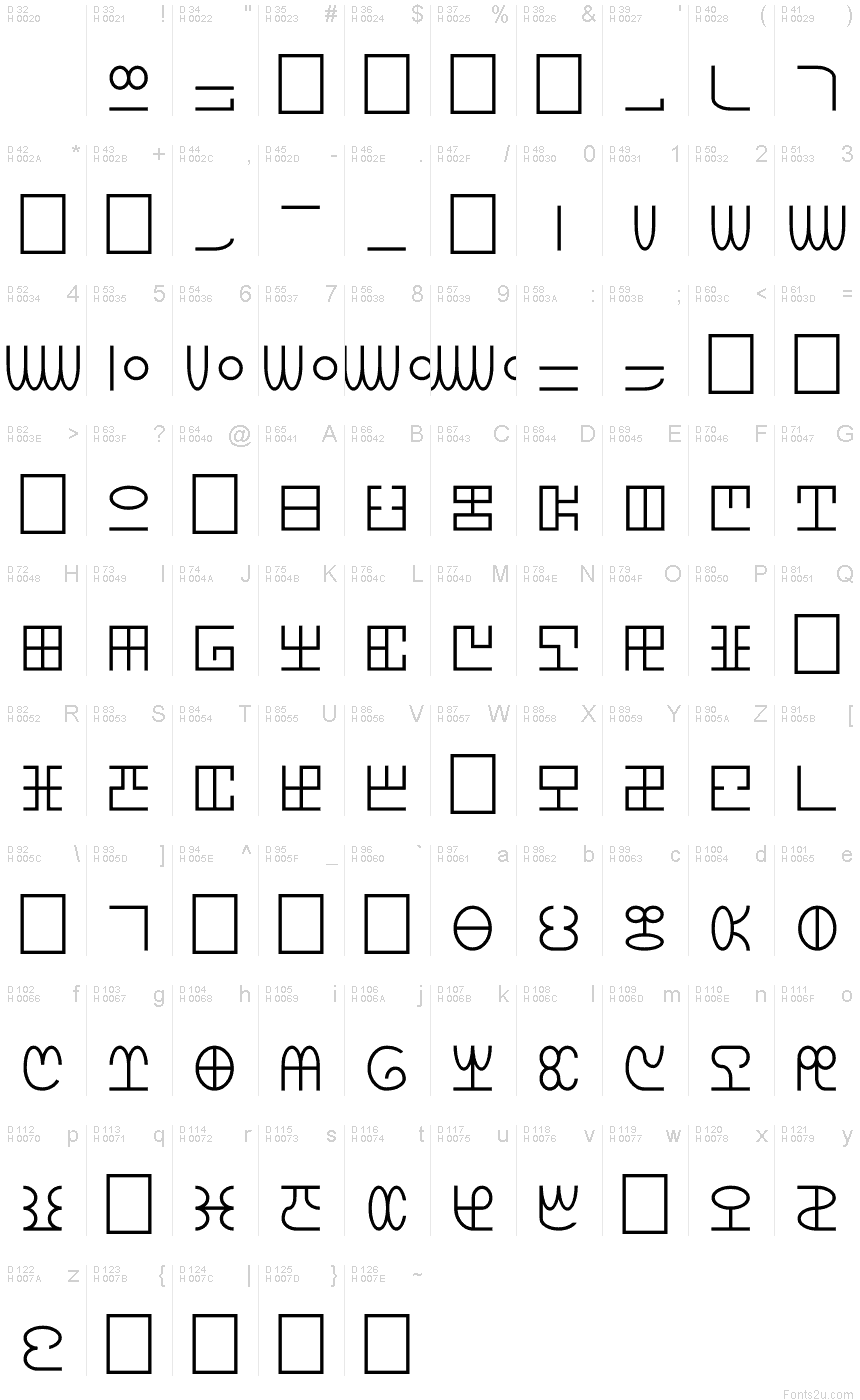
Khemitic Hieratic
Daniel U. Thibault
This font represents the main written script of my Ancient-Egypt-inspired fantasy world, Khemi.
The upper-case characters are the graven, angular version of the script; lower-case is the written, rounded version (this forces some odd mappings for the non-character symbols --see below).
The "e" and "é" (e acute) share the same glyph, as do the "ï" (dieresis i) and "y". There is no "q" or "w". There is no "u", but for convenience it is mapped to the "oo" glyph (French "ou"). The "c" stands for the "sh" phoneme. The nasal vowels "an", "in", "on" and "un" are mapped to circumflex a, i, o and u (â, î, ô, û). The phonemes "eu" and "ou" are mapped to "ë" and "ö" (dieresis e and o).
The angular exclamation and question marks are mapped to the inverted exclamation and question marks ("¡" and "¿"). The angular parentheses are mapped to the brackets ("[" and "]"). The angular comma and semi-colon are mapped to the single and double quotes, respectively ( ' and " ). Finally, there is an angular infinity symbol mapped to the integral.
Numbers:
Khemitic uses a Roman-like system with symbols for 1, 5, 10, 50, 100, 500 and so on up to 50 000. Note that subtractive notation isn't used (so nine is written VIIII, not IX). The digits 0 through 4 hold the corresponding successive powers of 10 (1, 10, 100, 1000, 10 000) whilst the digits 5 through 9 hold the corresponding times five values (5, 50, 500, 5000, 50 000), in rounded script. For the angular script, the zero is unchanged, the digits 1..4 are mapped to superscript one through three and the fraction one quarter ( ¹ ² ³ ¼ ¾); the "times five" glyph is mapped to the fraction three-quarters (¾).